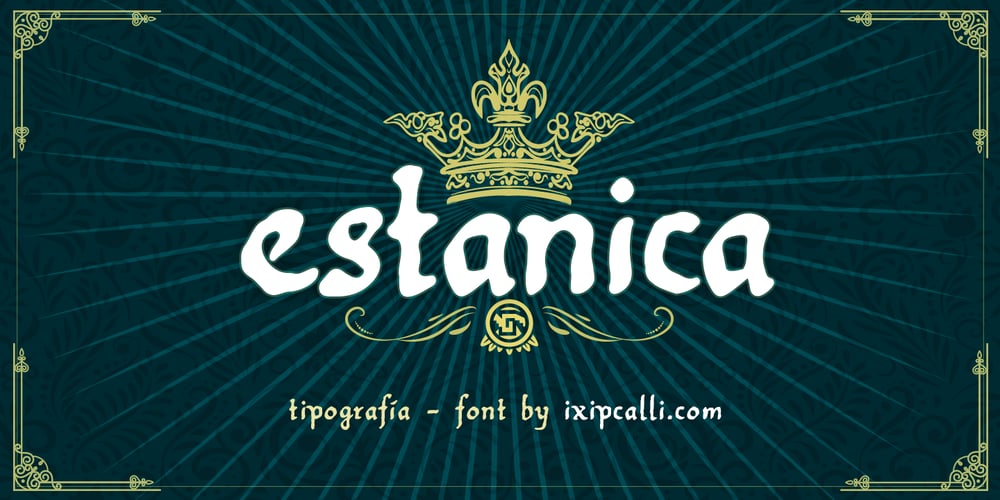
Estanica Font Family was designed by Francisco Arellano and published by Ixipcalli. Estanica contains 6 styles and family package options. Typography inspired by ancient medieval writings from texts and wordings of Spanish scriptures.